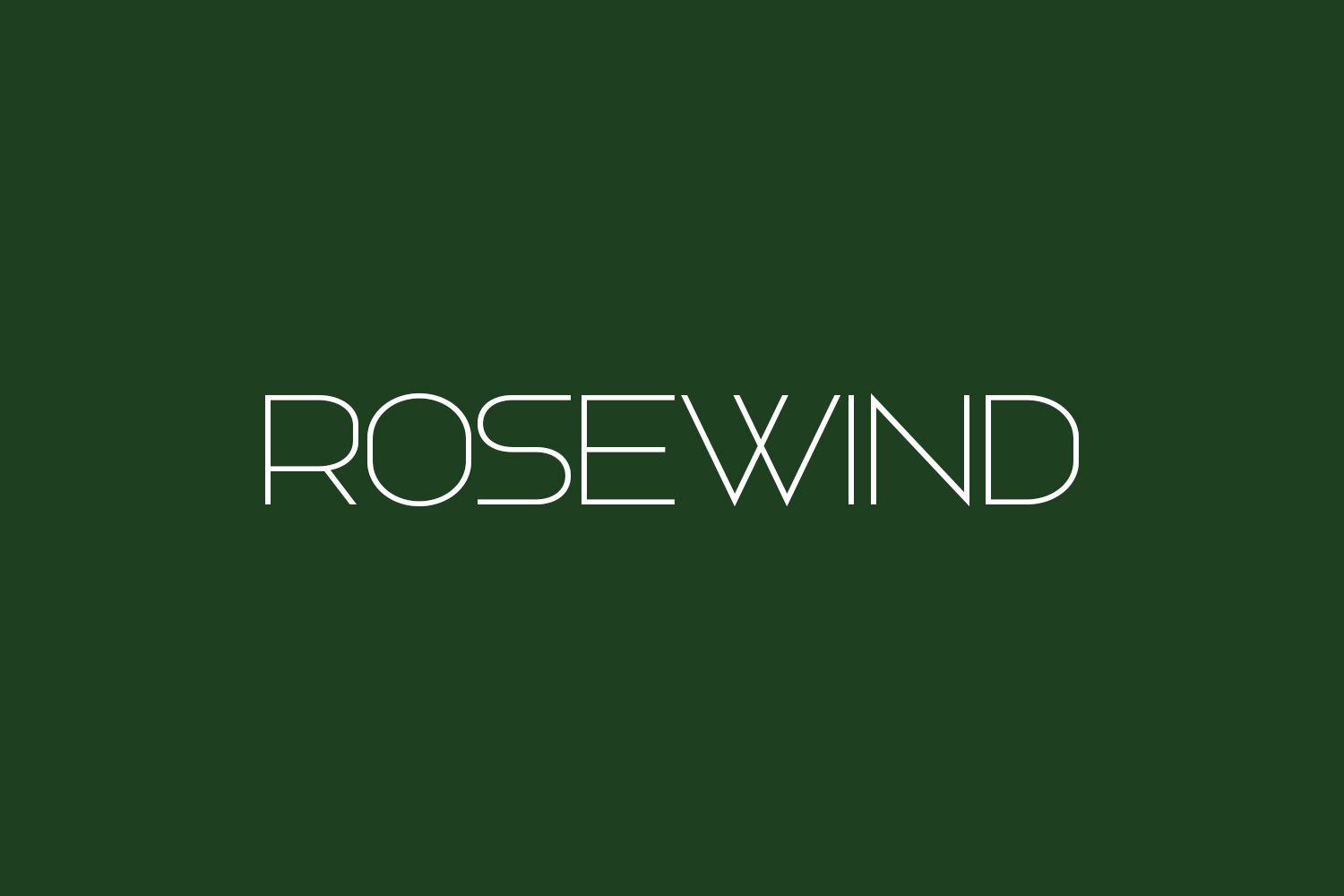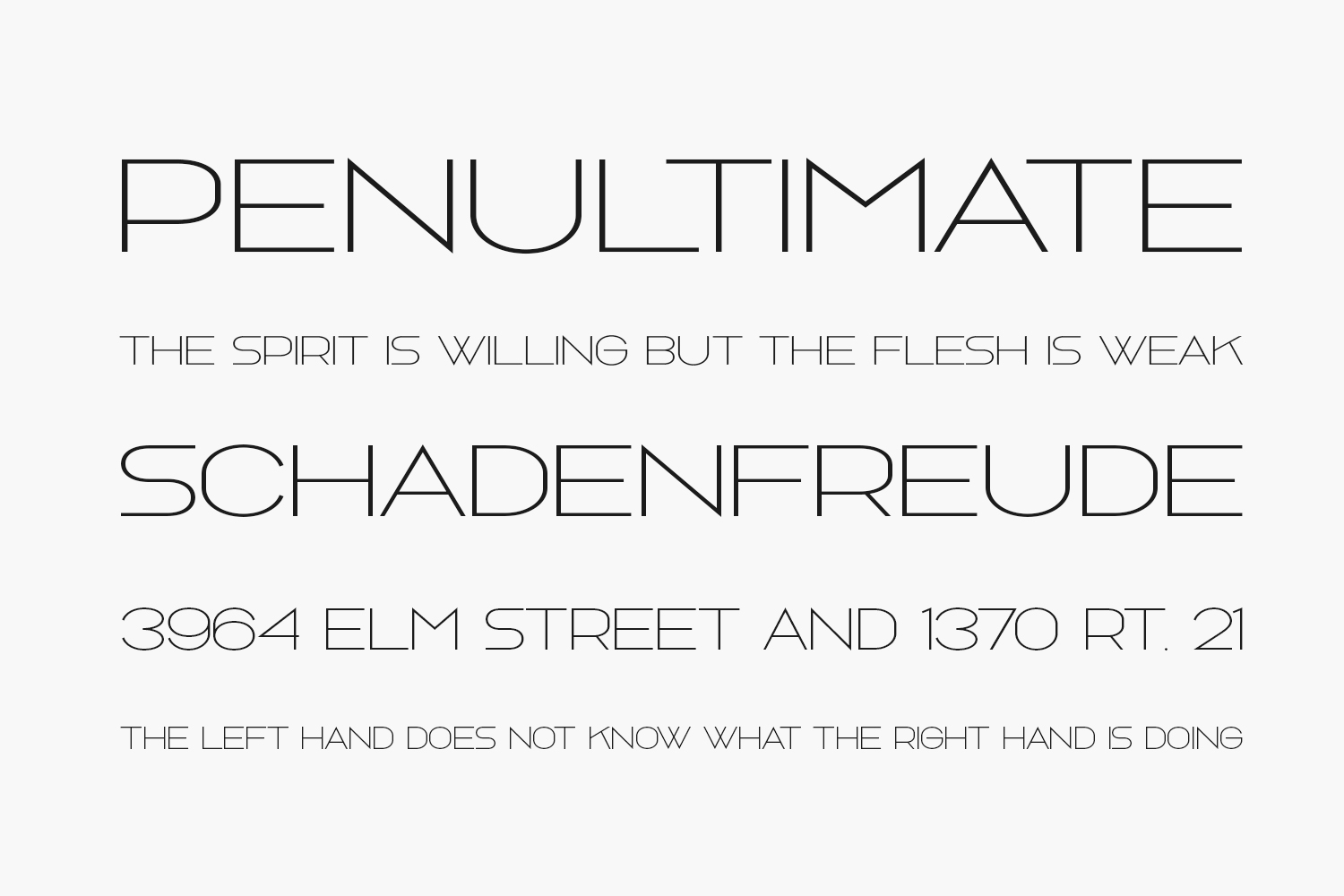
Discover the allure of Rosewind Free Font, a sleek and sophisticated sans serif typeface. Its timeless elegance is sure to captivate, making it perfect for crafting stunning designs that stand out effortlessly. Download the font for free if you need it for personal use or purchase the full version for commercial use.